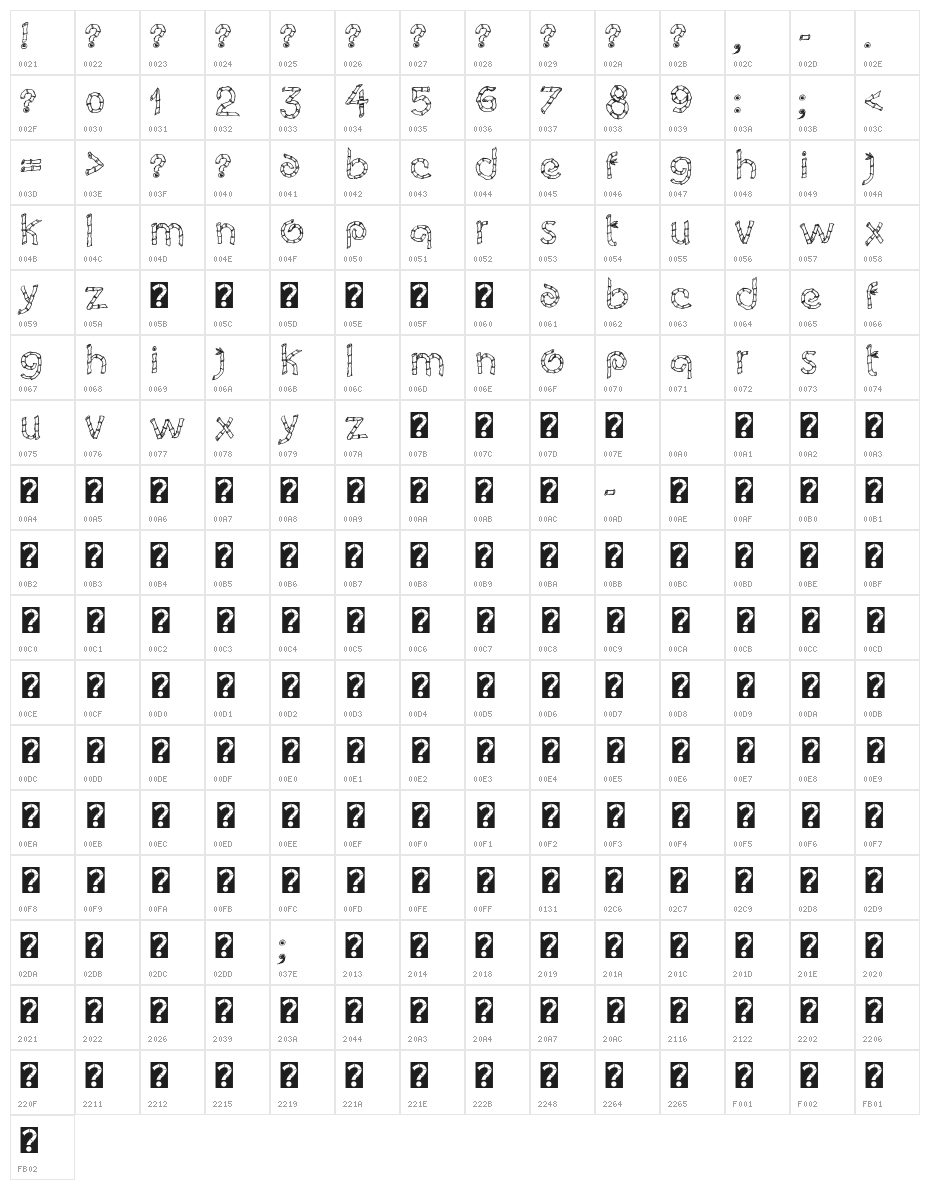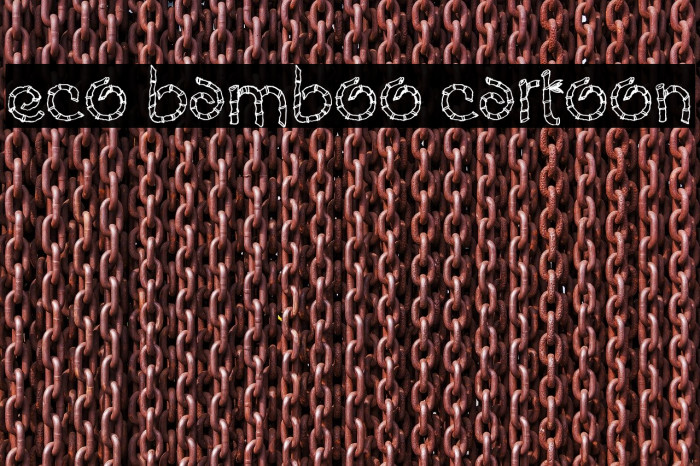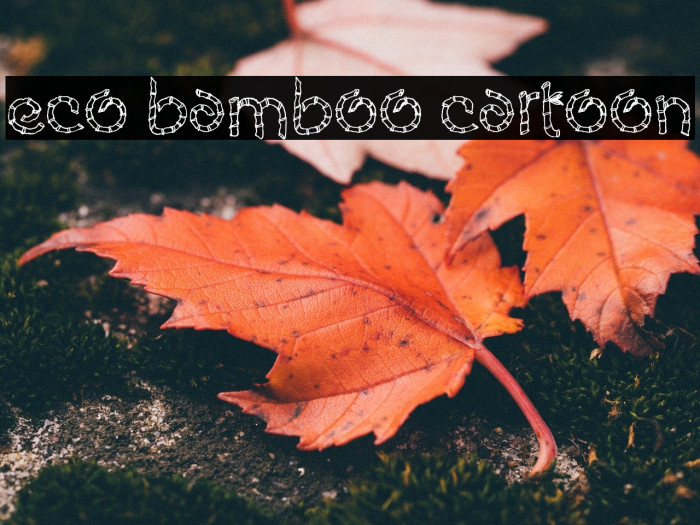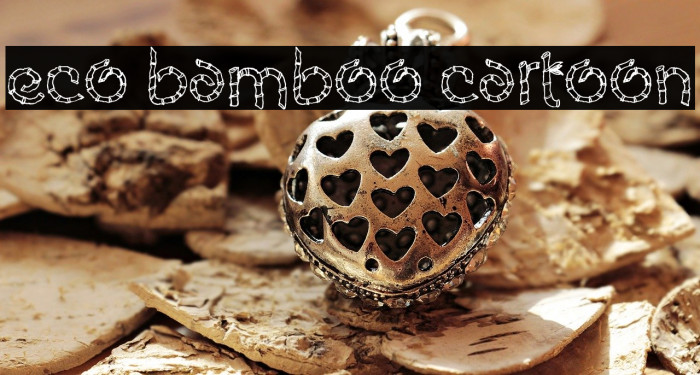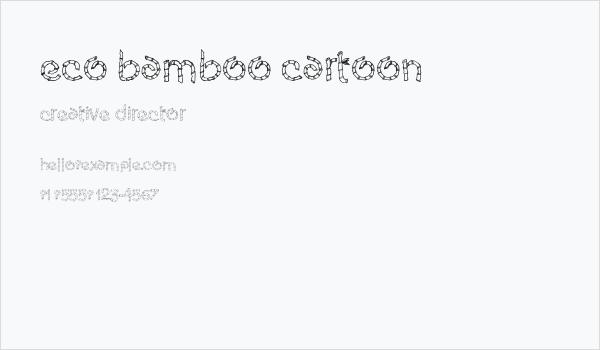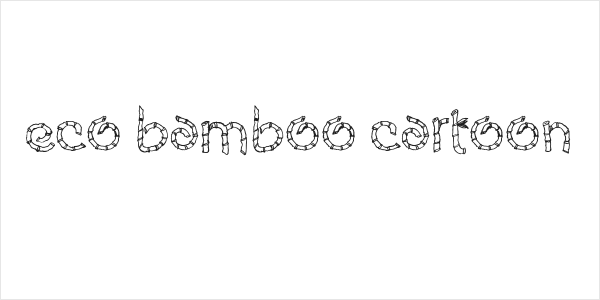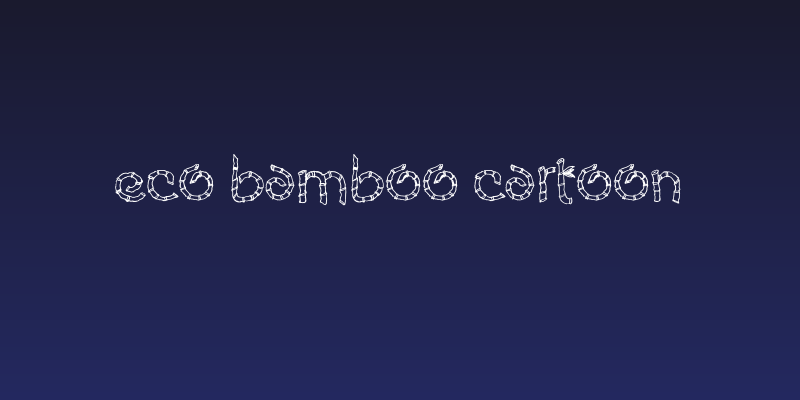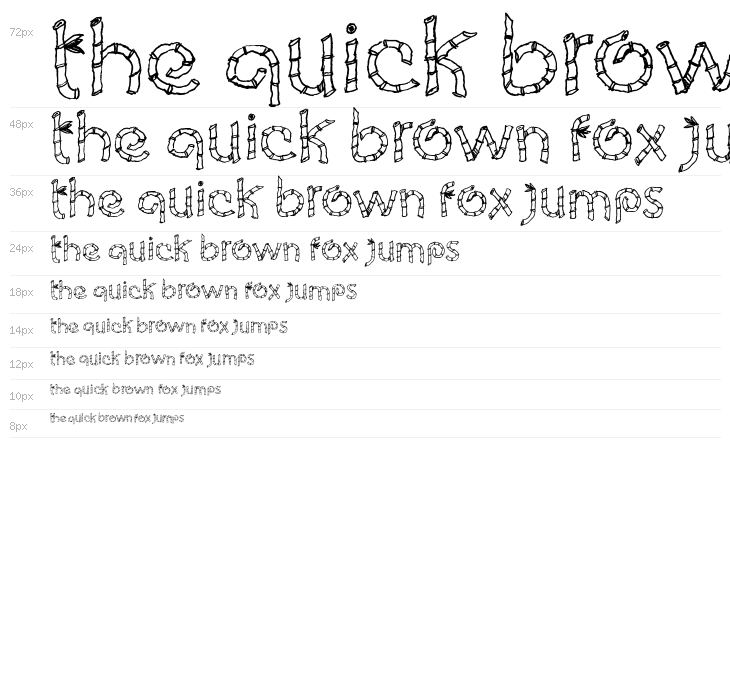
Eco Bamboo Cartoon Font
Eco Bamboo Cartoon Description
This playful and whimsical font is designed to resemble bamboo stalks, giving it a unique and organic appearance. Each character is crafted with a series of segments that mimic the natural joints of bamboo, creating a textured and three-dimensional effect. The font maintains a consistent width throughout, with slightly irregular edges that enhance its hand-drawn, cartoonish style. The characters are bold and easily legible, making them suitable for various creative applications. The font includes both uppercase and lowercase letters, numbers, and a selection of special characters, all maintaining the bamboo theme. Its distinctive style makes it ideal for projects that require a touch of nature or an eco-friendly aesthetic.
| Proposed Projects | Ideal for eco-friendly branding, children's books, environmental campaigns, and creative posters. |